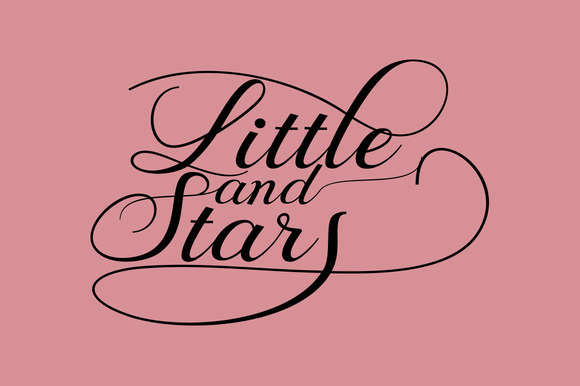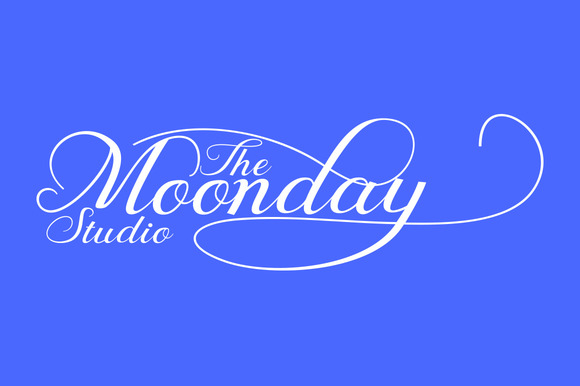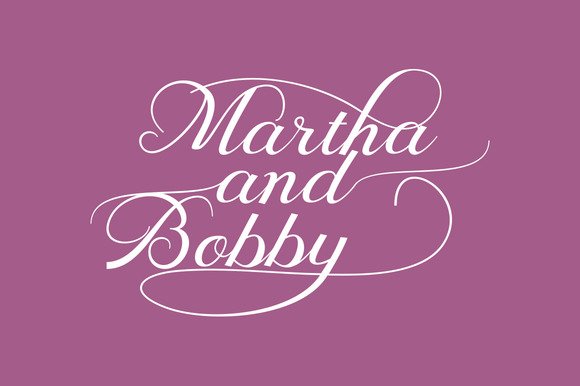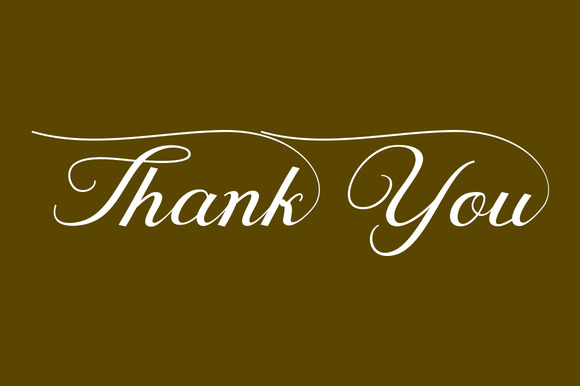
The Elegant Touch of Behind Script Font
There’s nothing quite like the rush of creative energy that comes with designing a beautiful brand identity or packaging design. The blank page stares back at you, and your imagination takes over. You start to envision the perfect combination of colors, shapes, and typography that will make your design stand out. And then, it happens – you stumble upon the perfect font to bring your vision to life. For many designers, that font is Behind Script Font.
This elegant hand-drawn script font boasts an adapted modern calligraphy style that creates smooth, fancy letters. Behind Script Font is designed to add a touch of sophistication and whimsy to any design project, making it a valuable addition to any designer’s toolkit. Whether you’re working on a wedding invitation, a luxury brand logo, or a packaging design, Behind Script Font is sure to elevate your design to the next level.
Behind Script Font Key Features
- Font Family: Behind Script, a elegant and sophisticated script font
- Unique Characteristics: Features a flowing, handwritten feel with subtle flair and connection between letters, perfect for creative and elegant designs
Behind Script Font Review
Behind Script Font is a beautifully crafted, elegant script font that adds a touch of sophistication to any design project. Here are some things that I think work well with this font:
- ✨ Versatility: Behind Script Font is incredibly versatile and can be used for a wide range of projects, from wedding invitations to branding materials.
- ✨ Elegant feel: The font has a classic, elegant feel that is perfect for designs that require a touch of sophistication.
- ✨ Customization options: The font comes with a range of customization options, including ligatures and swashes, which can help to add an extra layer of personality to your designs.
However, there are a few limitations to be aware of:
- ⚠️ Limited language support: Behind Script Font may not be suitable for projects that require support for languages other than English.
- ⚠️ Limited font size range: The font may not perform well at very large or very small font sizes, which can affect its legibility.
Overall, I think Behind Script Font is a beautiful and versatile font that can add a touch of elegance to any design project. While it may have some limitations, I think it is well worth considering for any project that requires a sophisticated, elegant feel.
Tips for Getting the Most Out of Behind Script Font
Here are some tips to get the most out of Behind Script Font:
- Use it for titles and headings to add a touch of elegance and sophistication.
- Pair it with a serif or sans-serif font for a balanced look.
- Experiment with different font sizes and colors to create a unique visual effect.
Behind Script Font is commonly used for:
- Stationery